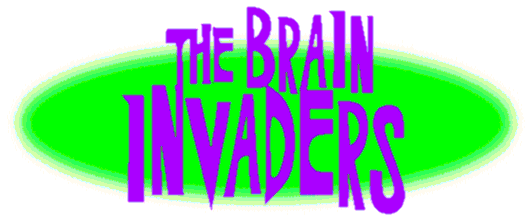
Brain Invaders
Inspired by the T.V. series created by Larry "It's Alive" Cohen. A 60's-style science Fiction font for an out of this world experience. The lowercase letters are a completely different set of characters.